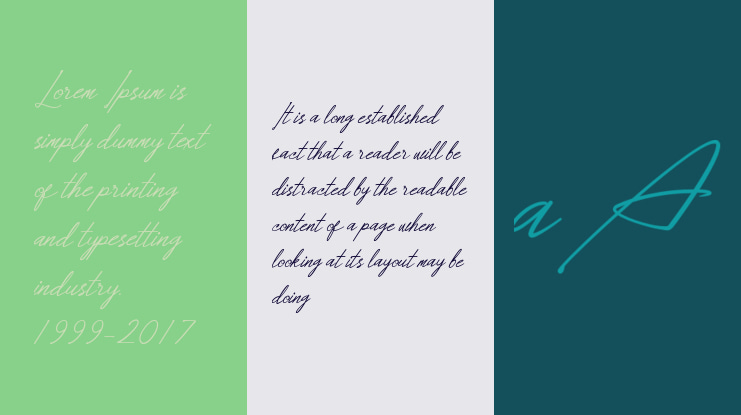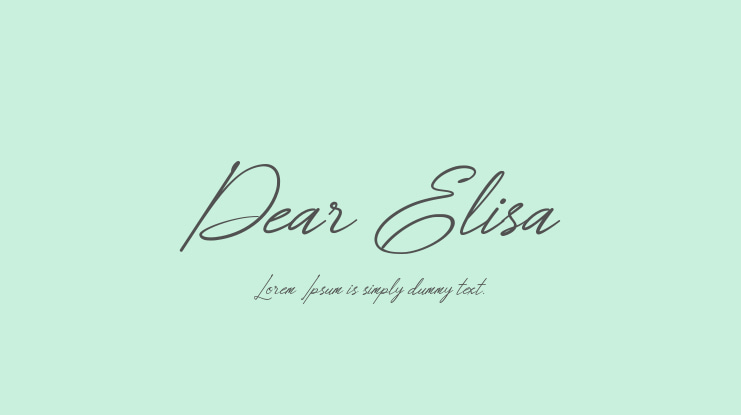
Dear Elisa Font
The Dear Elisa is a modern handwritten script. It has a natural and elegant style and is perfect for branding, signatures, watermarks, business cards, clothing, magazines, and every other design which needs a luxurious feel.